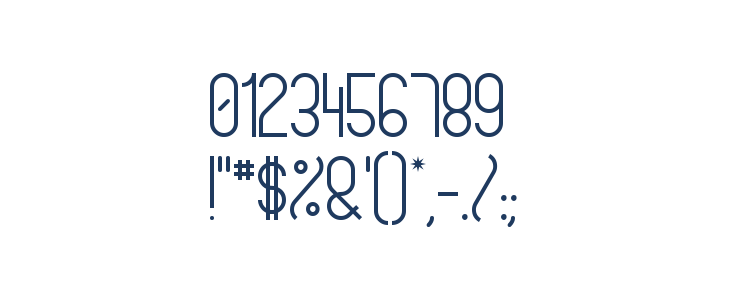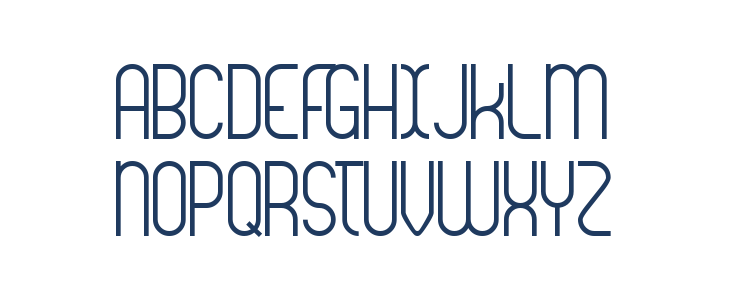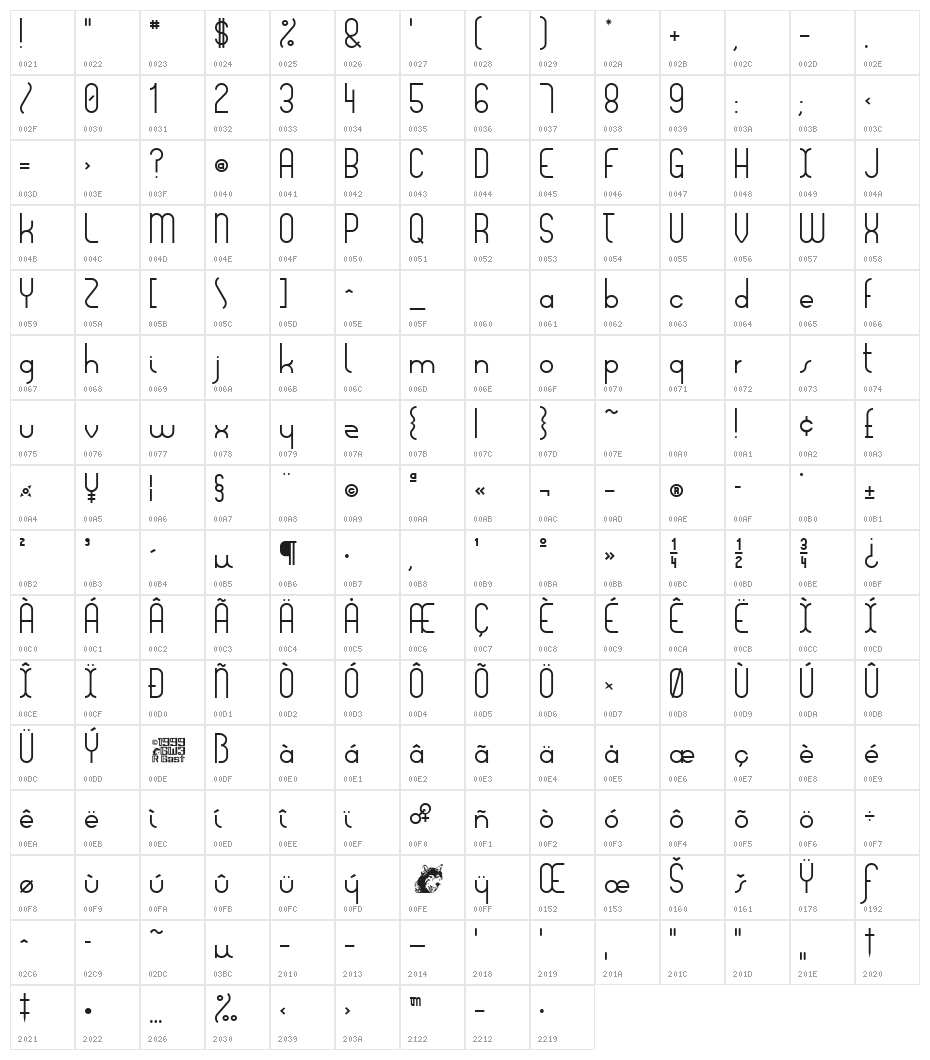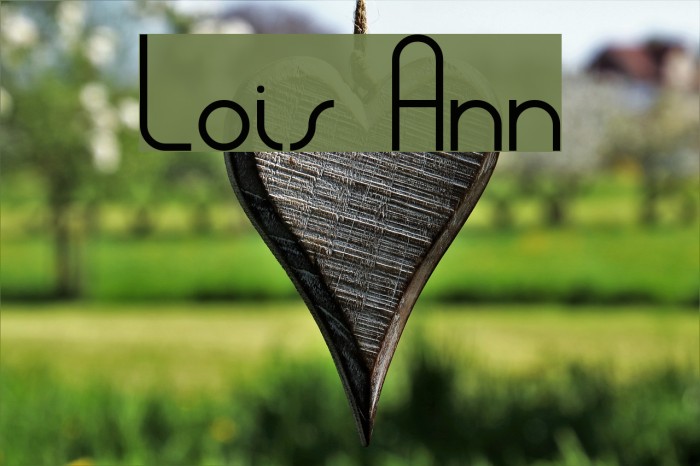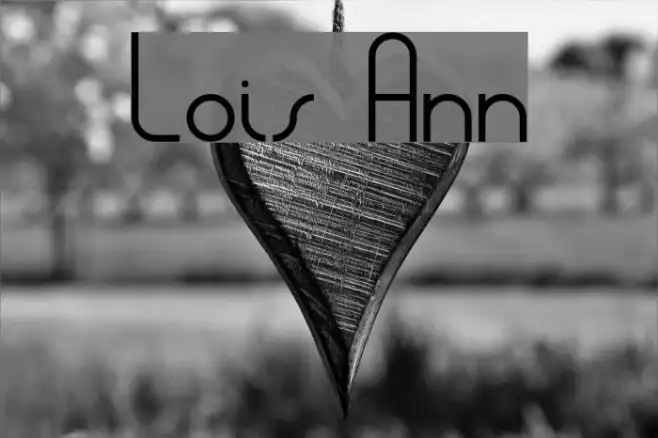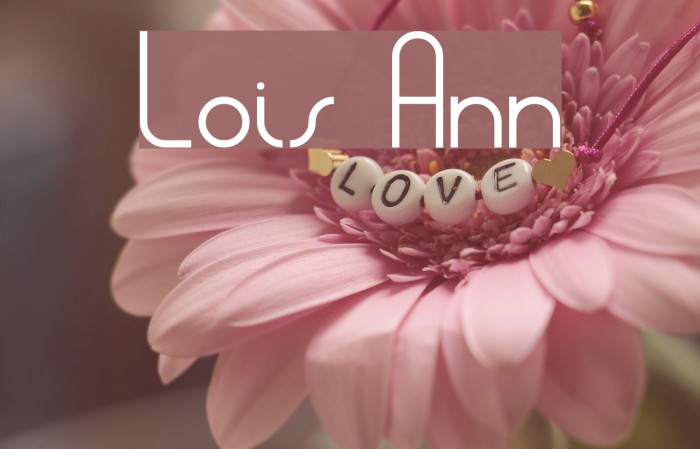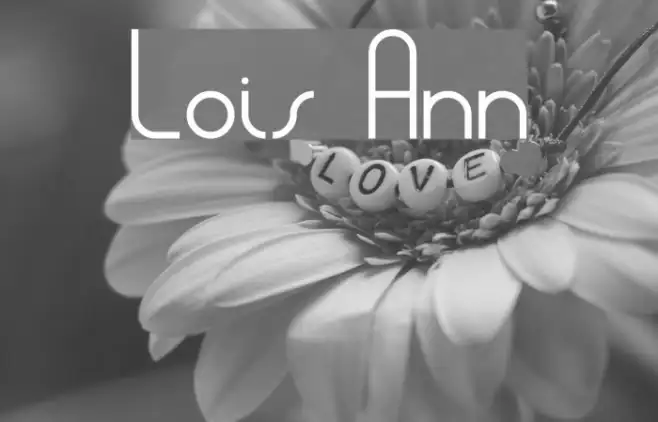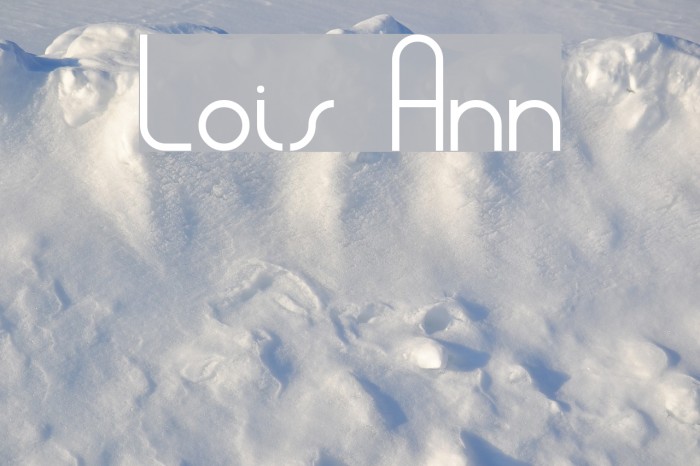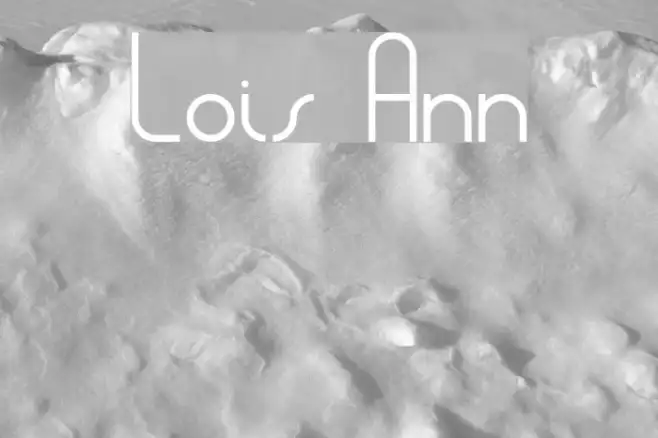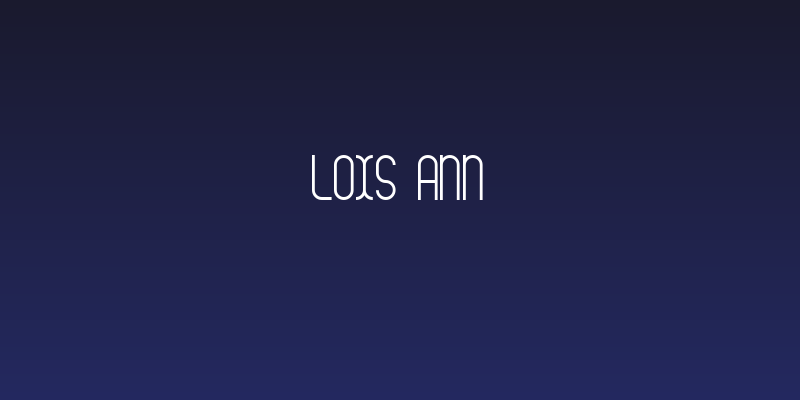
Lois Ann Font
Lois Ann Description
This font features a modern, geometric design with clean lines and a minimalist aesthetic. The uppercase letters are tall and narrow, with rounded edges that give a soft, approachable feel. The lowercase letters maintain a consistent style, with a slight variation in height that adds visual interest. Numbers are designed to match the overall style, ensuring uniformity across all characters. Special characters are included, each crafted with the same attention to detail, making this font versatile for various applications. The overall look is sleek and contemporary, suitable for projects that require a touch of modern elegance.